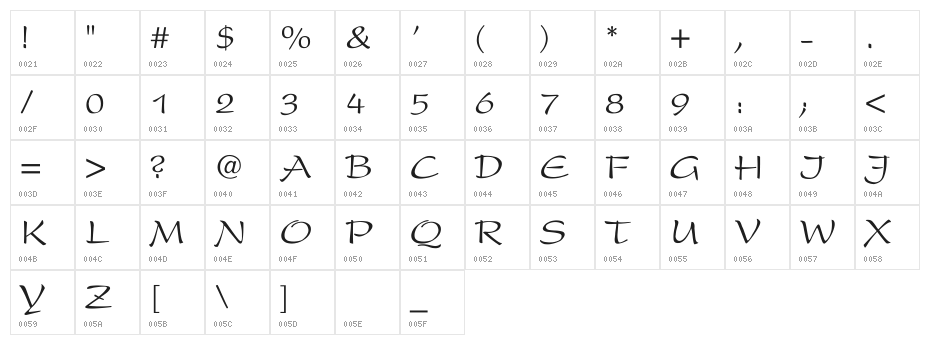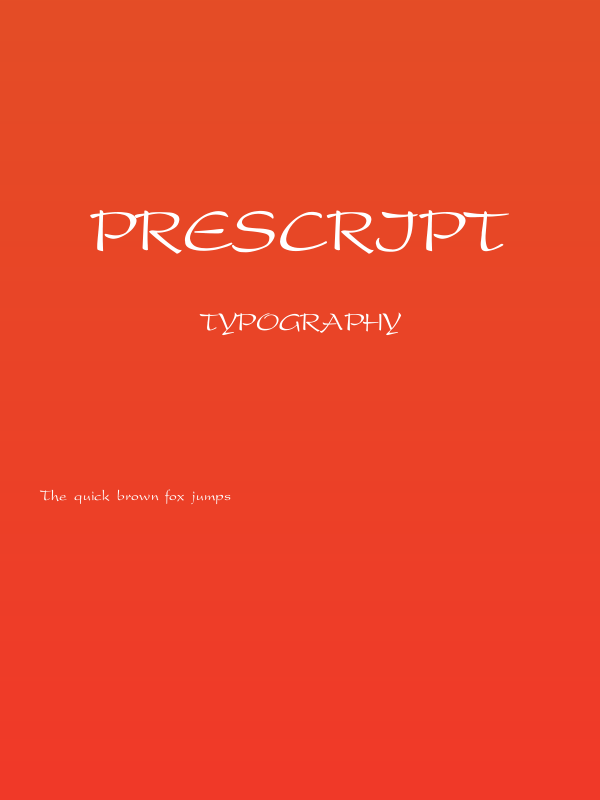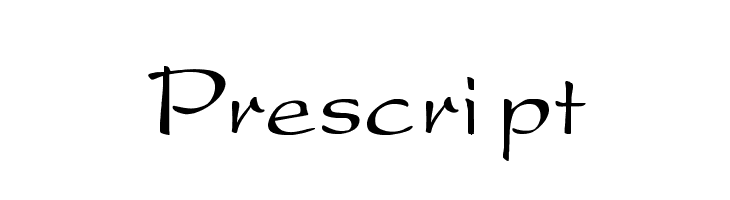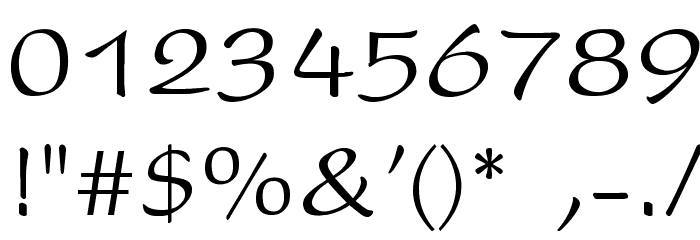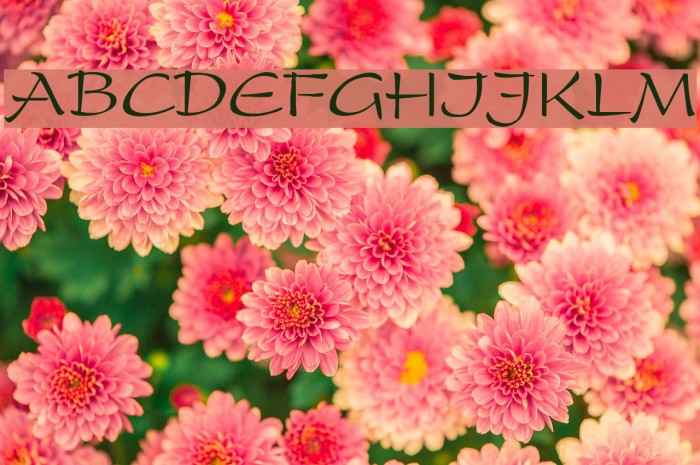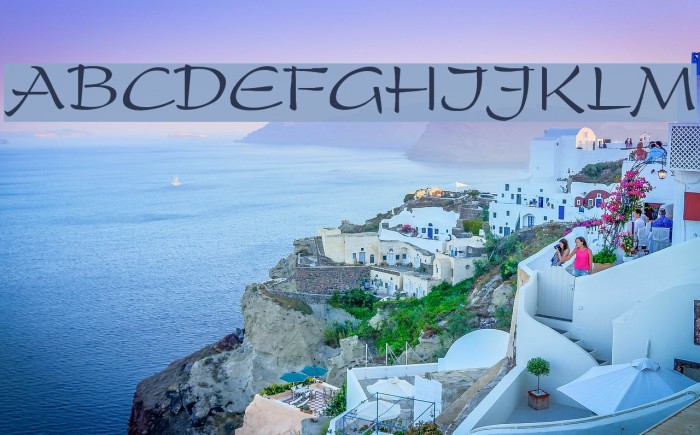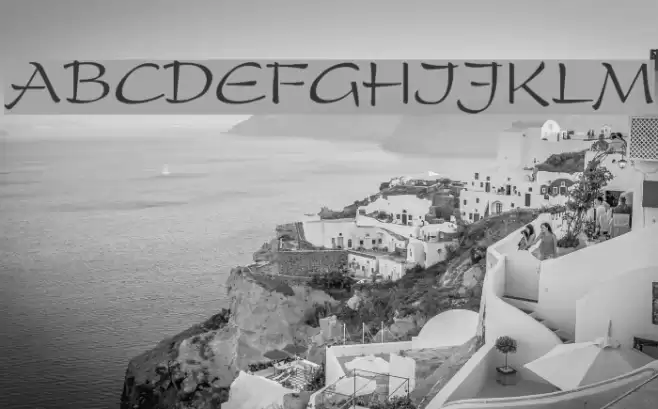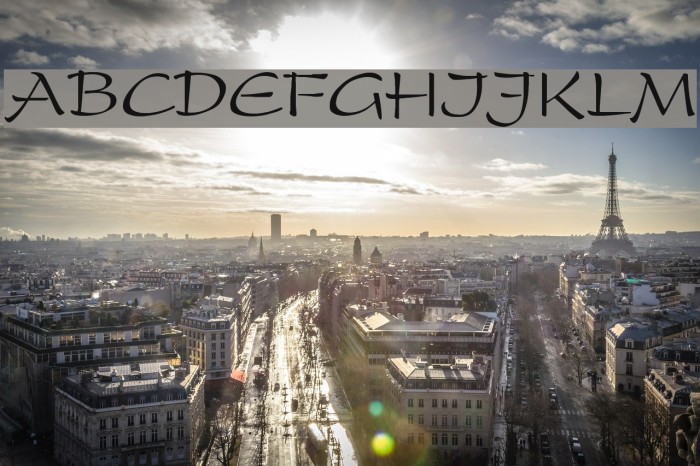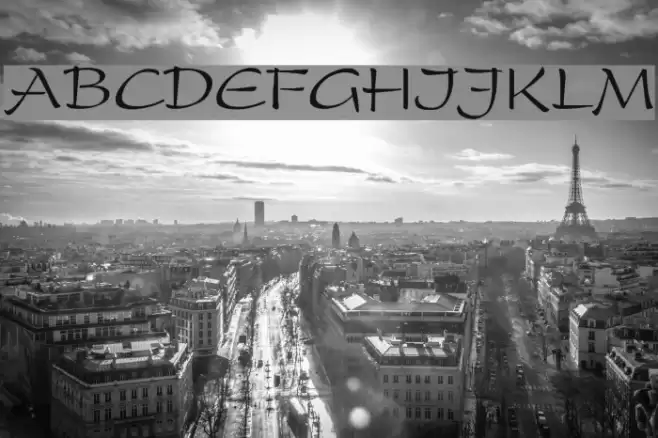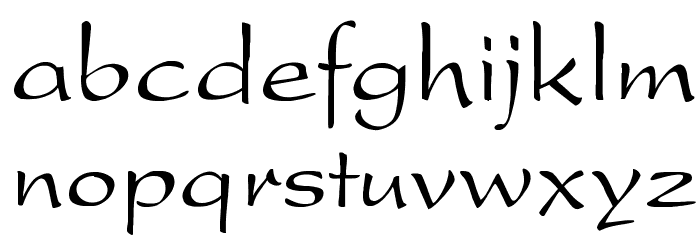
Prescript Font
Prescript Description
This font features a playful and dynamic design, characterized by its handwritten style with a slight slant. The letters exhibit a casual elegance, with smooth curves and varying stroke widths that add a sense of movement and personality. The uppercase letters are bold and slightly wider, while the lowercase letters maintain a consistent flow, enhancing readability. The numerals are distinct and align well with the overall aesthetic, making them suitable for various applications. Special characters are thoughtfully integrated, maintaining the font's cohesive look. This font's unique style makes it ideal for creative projects that require a touch of individuality and flair.